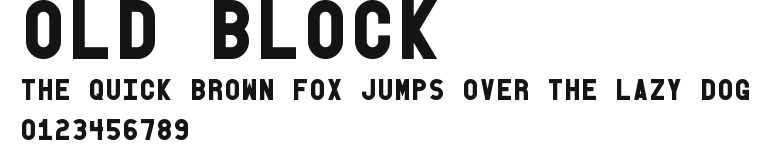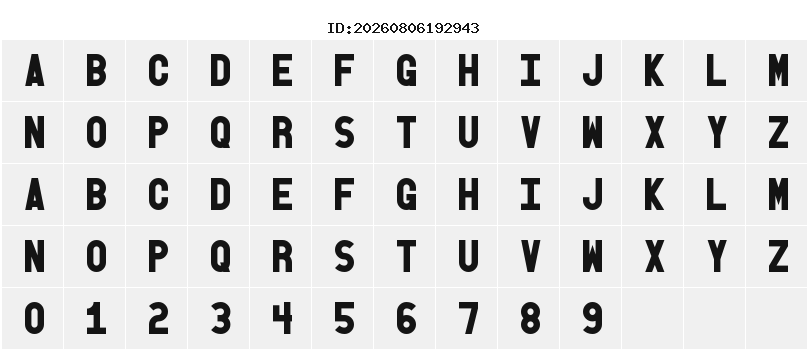
• Font Name: Old Block
• Font Style: Black
About Old Block.ttf
Old Block.ttf is a modern, elegant sans-serif font designed for ultimate readability and visual harmony. Perfect for branding, headlines, web design, and print materials.